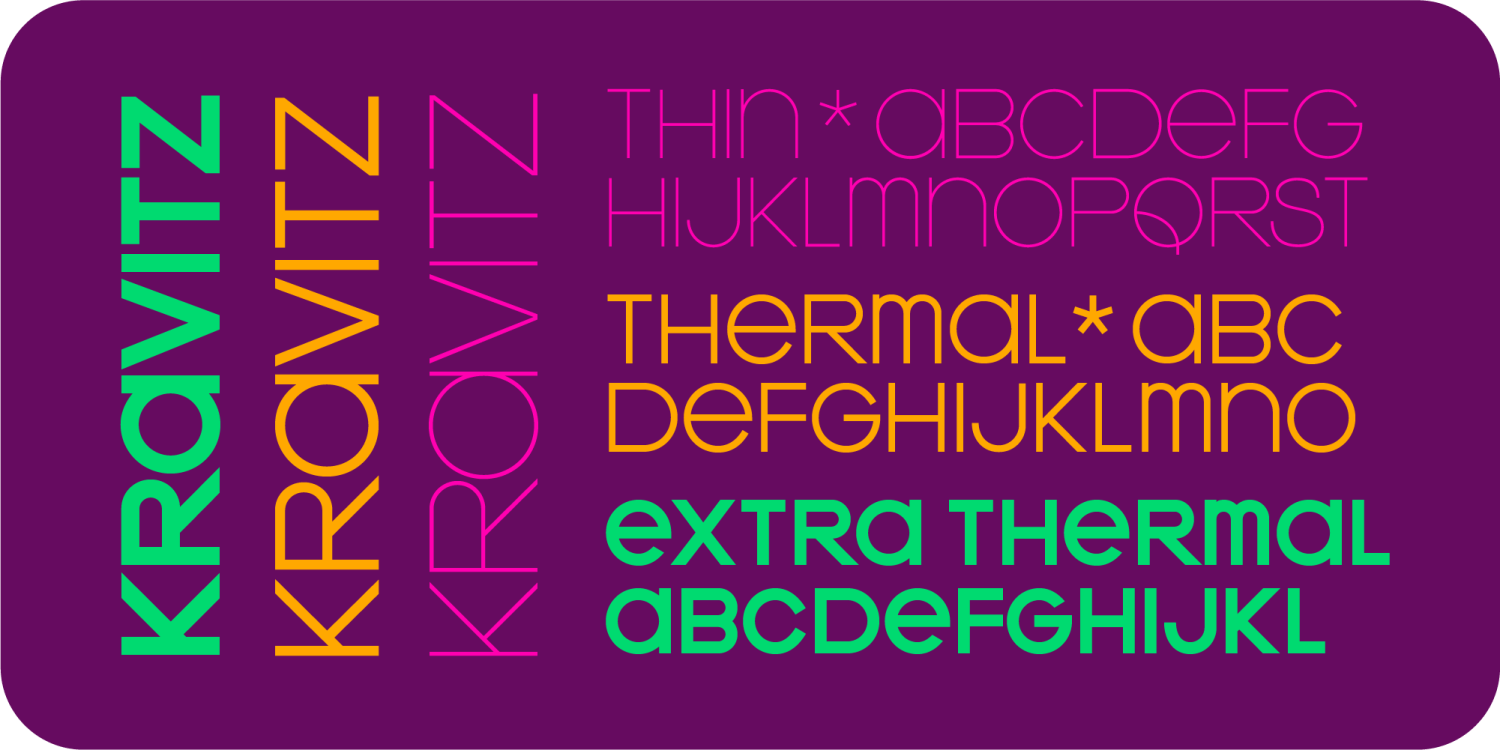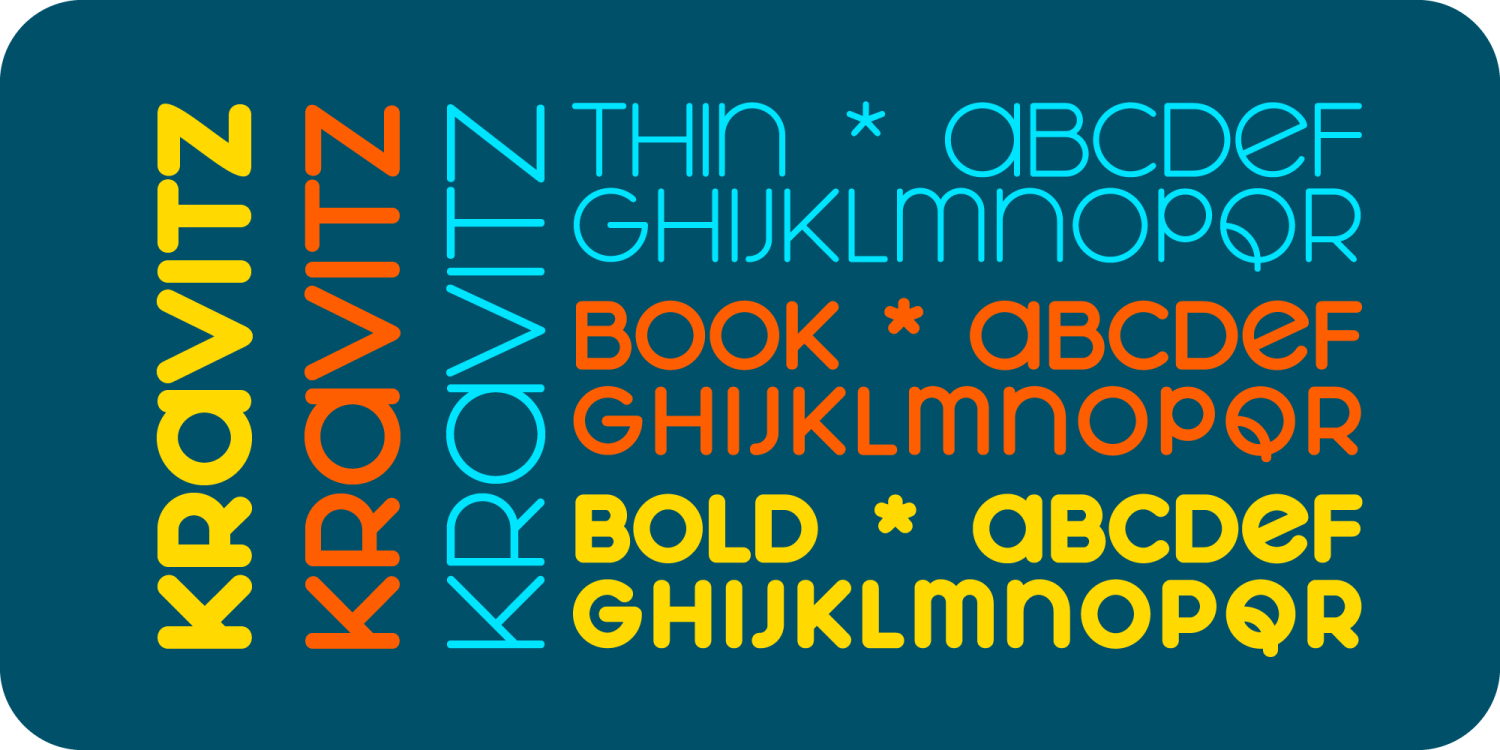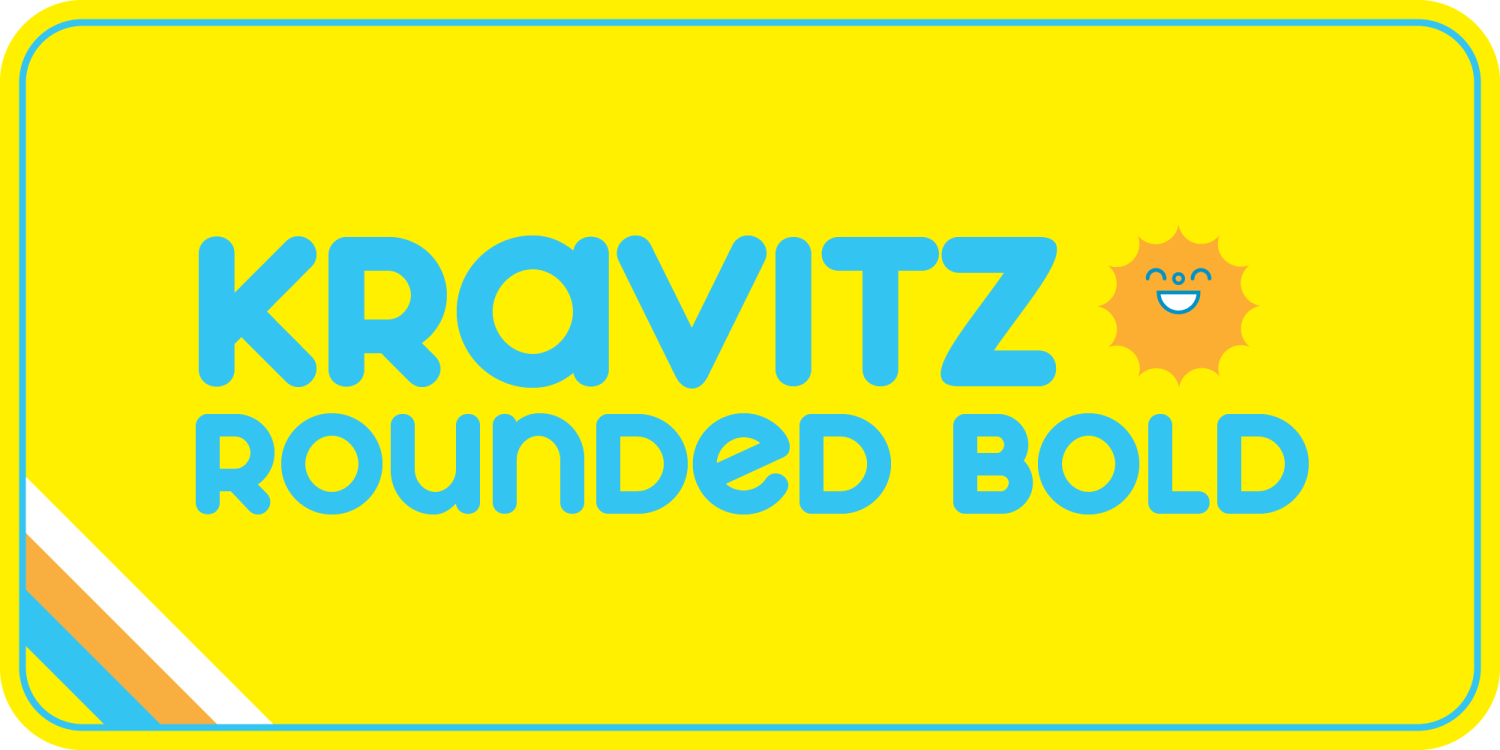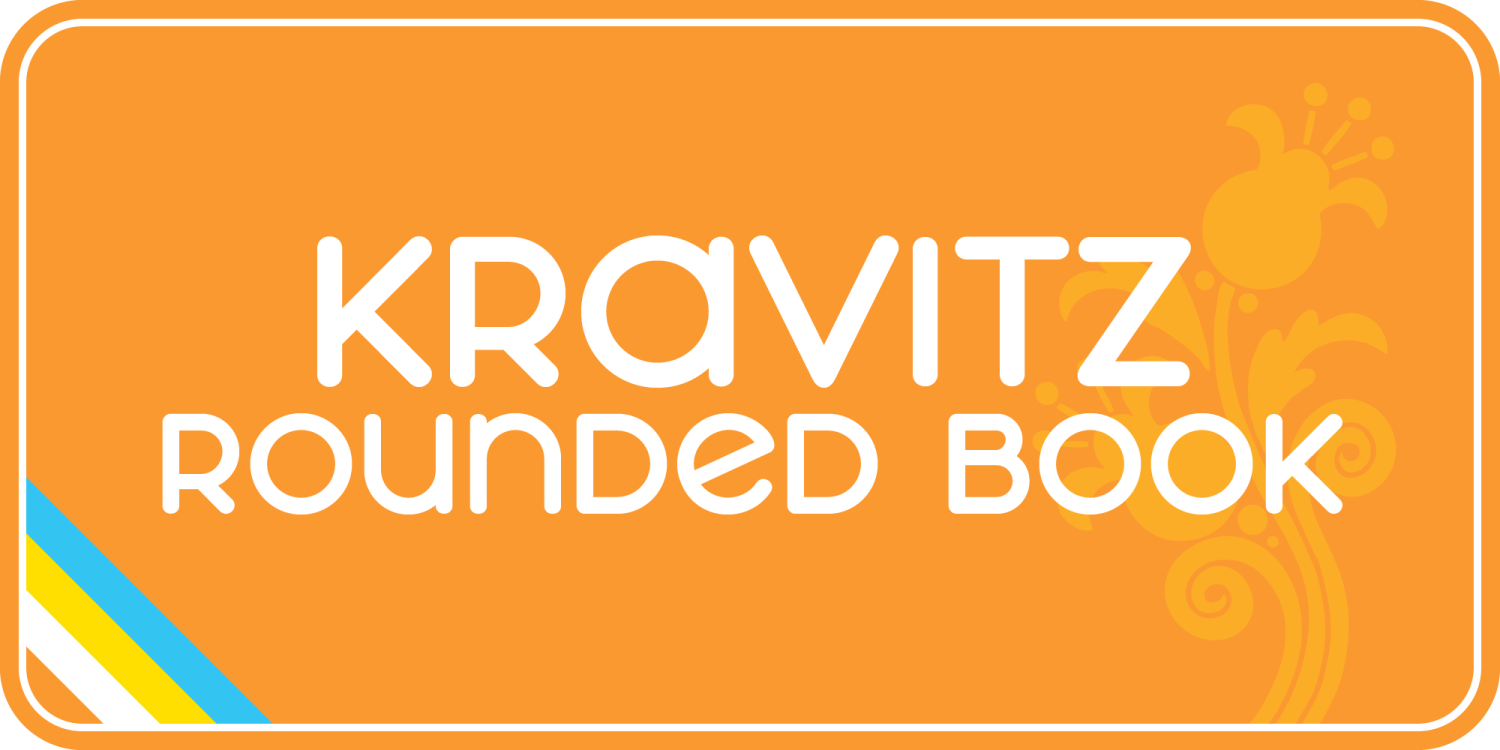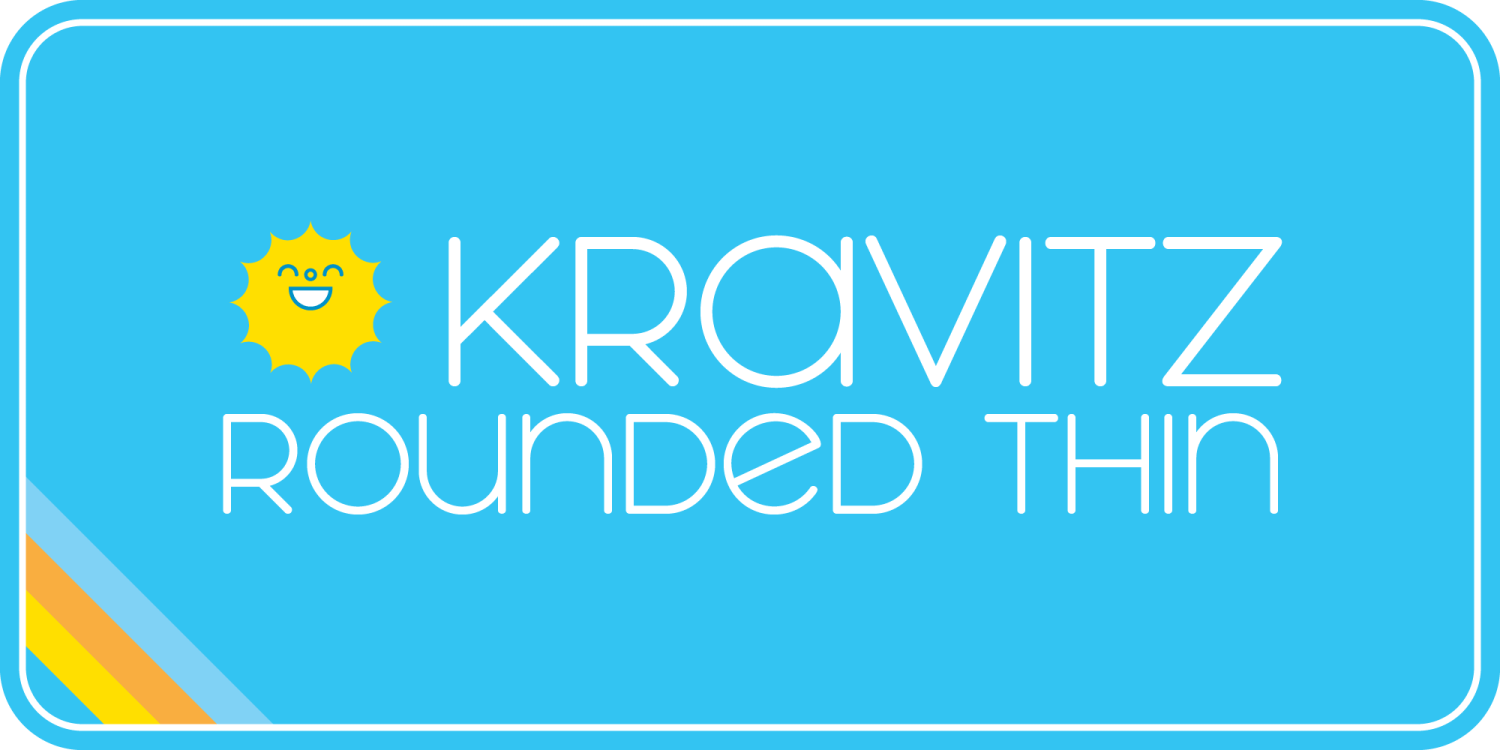
About Kravitz
This is a good font family. It could be classified as a classy late '70's disco or as a totally awesome futuristic fonts. Basically, what you got here is a really thin alphabet, a thicker one and the thickest one. Extra Thermal is the thickest…